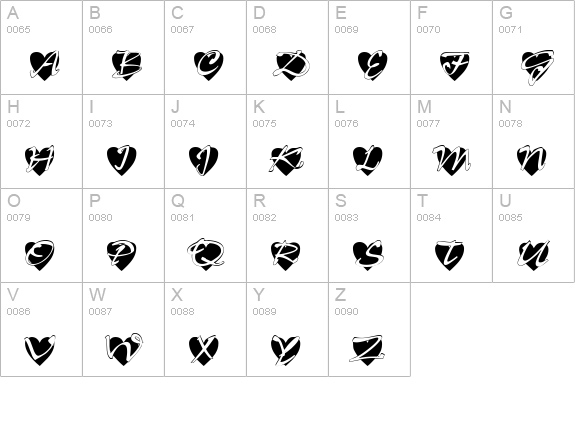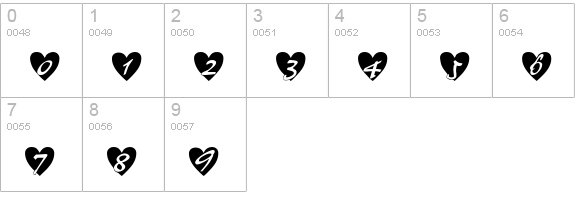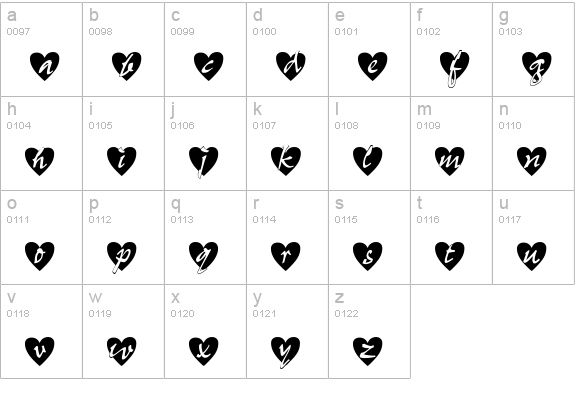
All Hearts Font Details
All Hearts font is a whimsical and charming typeface that is perfect for adding a touch of love and warmth to your designs. With its delicate heart-shaped details and elegant curves, this font will capture the hearts of your audience and make your projects stand out. Whether you're working on a romantic wedding invitation, a heartfelt greeting card, or a lovely poster, All Hearts font will bring a sense of sweetness and joy to your creations. And the best part is, All Hearts font is available for free download at FontsMarket.com! You can easily access this beautiful font and use it in your personal or commercial projects without any cost. Don't miss out on the opportunity to add a touch of love to your designs with All Hearts font today!